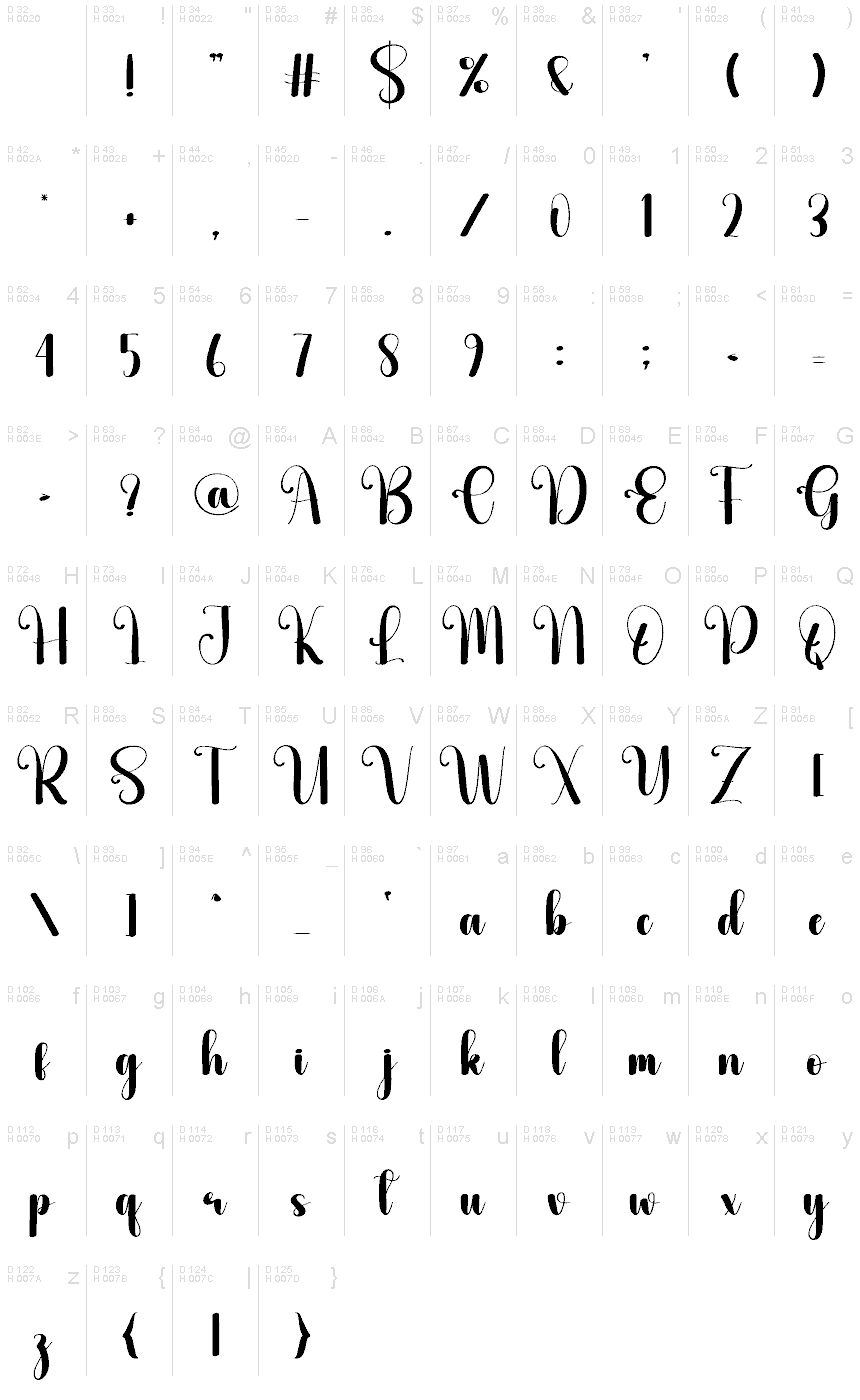
Whitered
Whitered font by Andi Moz is a free calligraphy font that brings an elegant and flowing touch to any design. The modern script alphabet holds expressive characters with decorative flair perfect for presenting sophistication through typography.